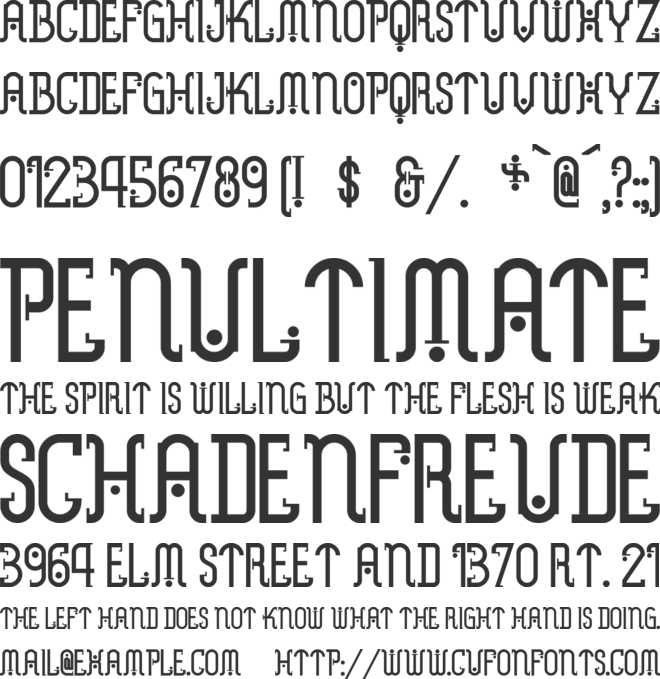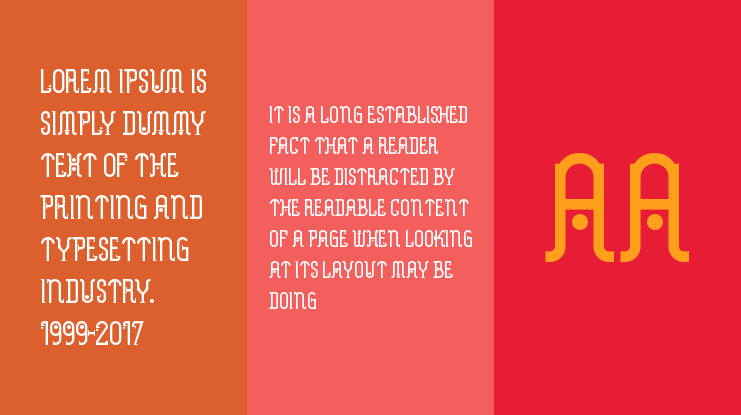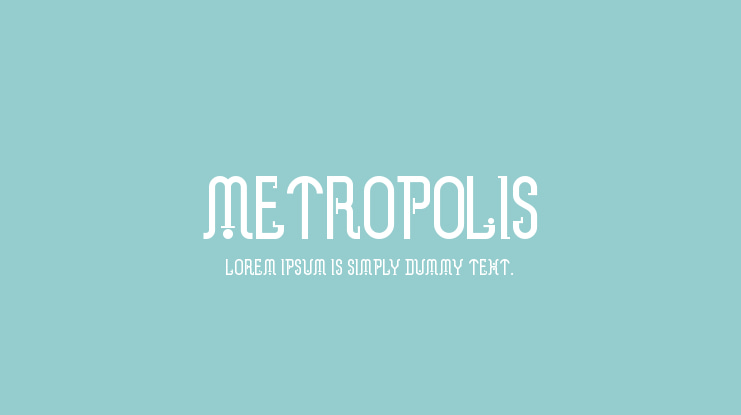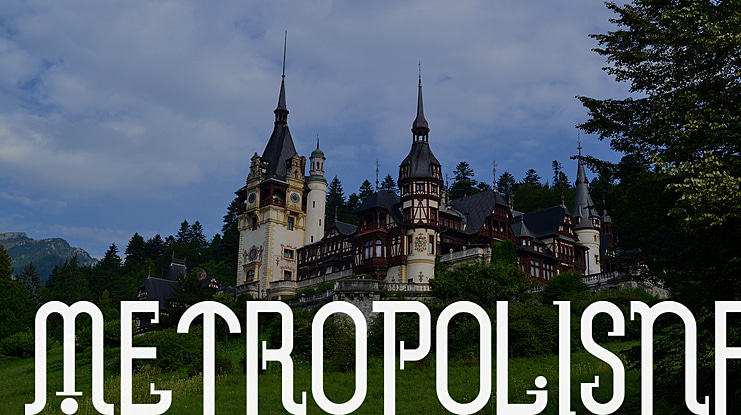
Metropolis Font
Nick Curtis
I discovered the inspiration for this font on a contemporaneous poster for Fritz Lang’s classic silent film of the same name, and liked it a lot. A very strange 1920s idea of futuristic lettering, but a whole lotta fun